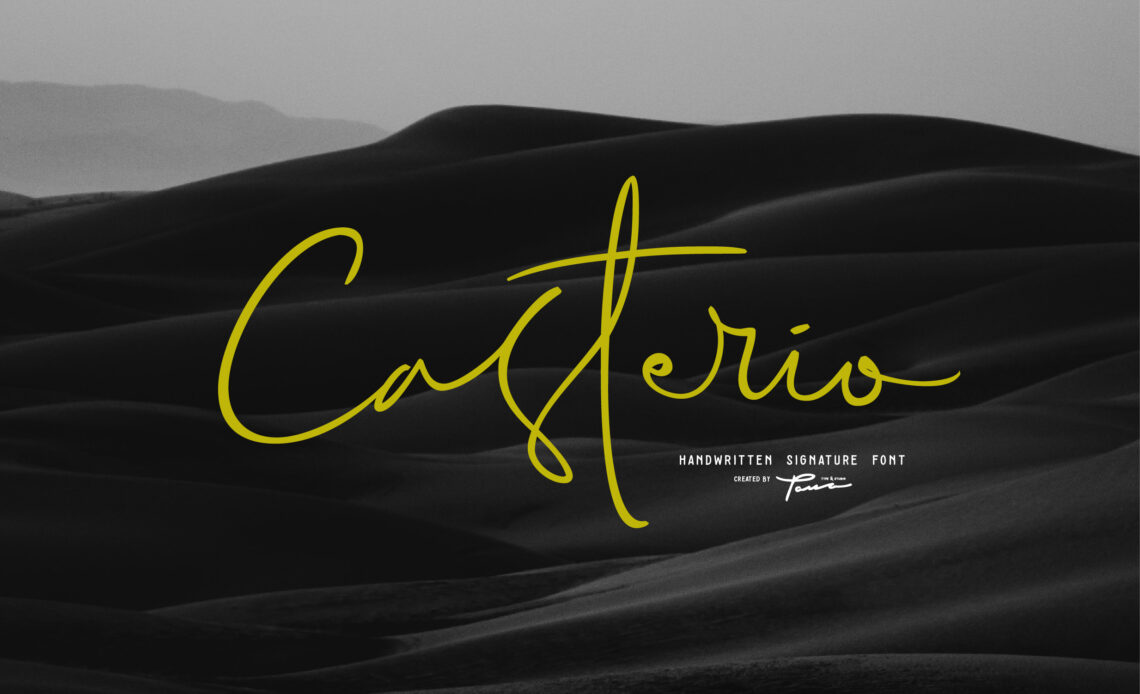
Dive into the realm of elegance and sophistication with Casterio, a captivating script font that will enchant you with its timeless beauty. This slender and alluring font exudes a certain grace that will leave you breathless. Crafted with meticulous attention to detail, Casterio embodies a modern aesthetic with a touch of vintage charm.
As you explore the depths of Casterio's characters, you'll discover a symphony of curves and strokes that dance harmoniously on the page. Each letter is a work of art, carefully designed to convey a sense of effortless elegance. Whether you're a seasoned designer or just starting out, Casterio will elevate your projects to new heights of creativity.
With Casterio, your words will come alive with personality and flair. Its thin and delicate lines lend a touch of femininity and grace to any design, making it perfect for branding, wedding invitations, social media graphics, and any project that demands a touch of sophistication.
Unleash your imagination and let Casterio take you on a journey of artistic expression. Its carefree and relaxed vibe invites you to create designs that evoke a sense of tranquility and ease. Let your creativity flow freely as you explore the endless possibilities that this font has to offer.